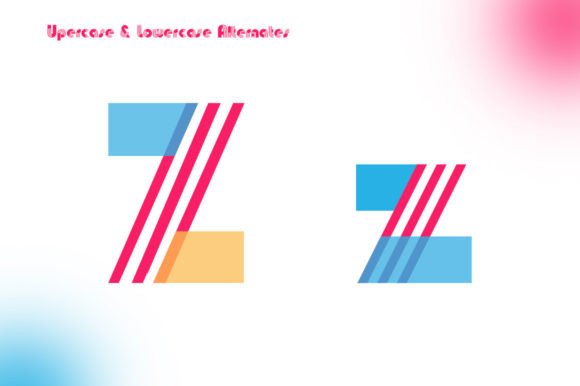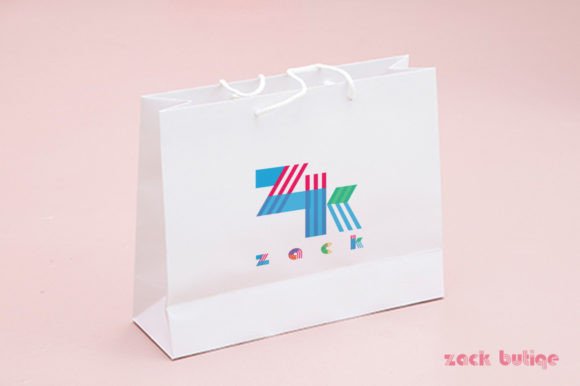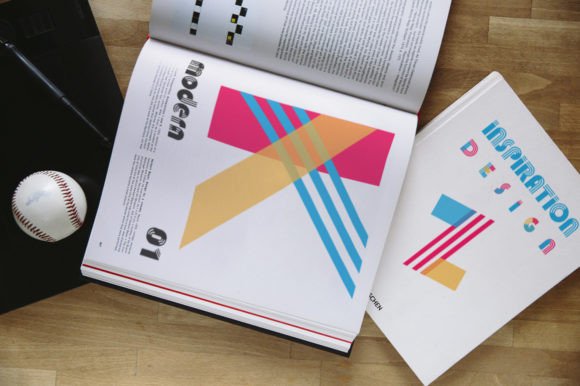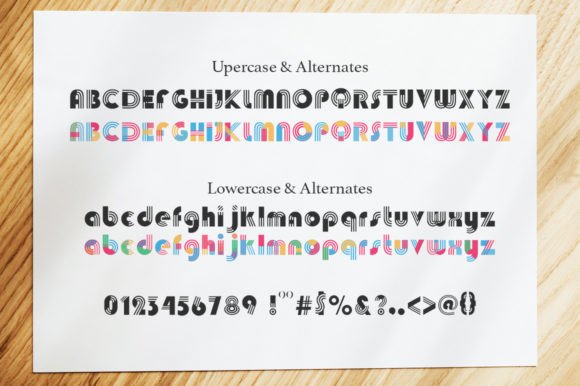
Shape Font
About Shape Font
Shape is a delightful and whimsical color font that brings a playful touch to any design project. With its unique and eye-catching letterforms, this font adds a touch of fun and creativity to your creations.
No matter the topic or theme of your project, Shape is a versatile asset that can enhance any design. Its vibrant colors and charming shapes make it a perfect choice for various applications, including posters, invitations, branding materials, social media graphics, and more.
This font’s whimsical nature allows it to stand out and capture attention. Each letter is crafted with care, featuring a combination of colors and shapes that create a visually appealing and dynamic effect. The font’s playful design makes it particularly suitable for projects aimed at children, art-related endeavors, or any creation that calls for a touch of joy and imagination.
Shape is not just a font; it’s a creative tool that allows you to express your unique style and personality. By incorporating this font into your designs, you can add a sense of wonder and delight that captivates your audience.
Embrace the versatility of Shape and explore the endless possibilities it offers. Let your imagination run wild and watch as this fun and whimsical color font elevates your creations to new heights. Enjoy the process of using Shape to enhance your designs and experience the joy it brings to your font library.